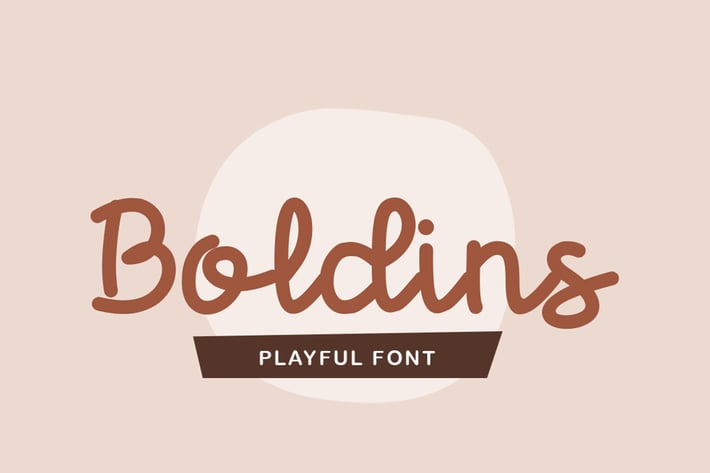
Boldins - Monoscript Font
garisman
Boldins is a beautiful handwritten font, featuring a lovely flow. It will add a joyful touch to your crafting designs, school projects and anything else that may need a happy vibe! and use it to brighten up any crafting project!